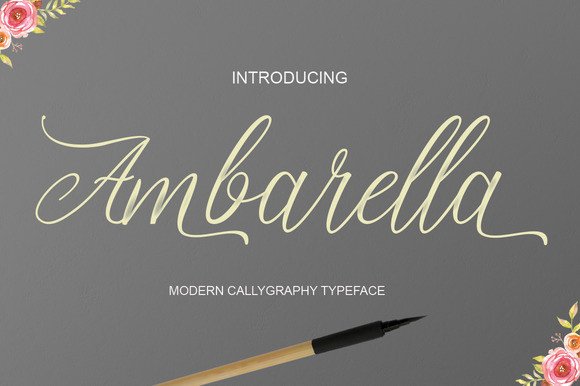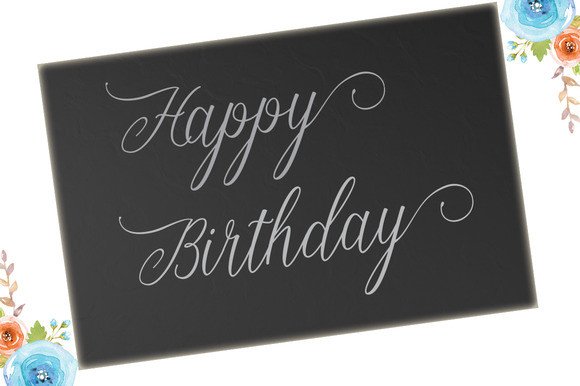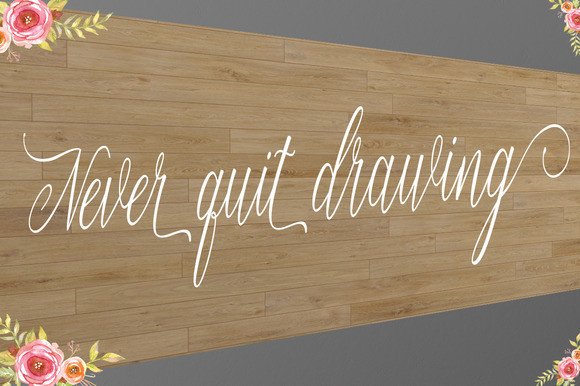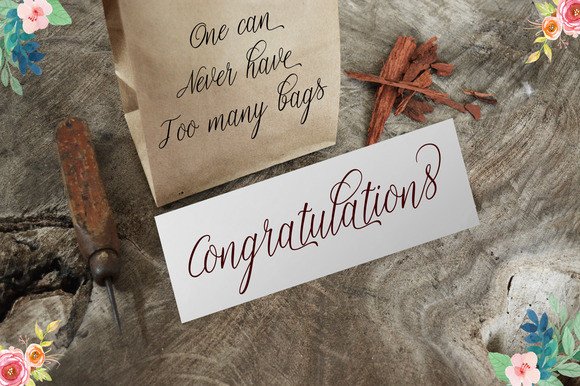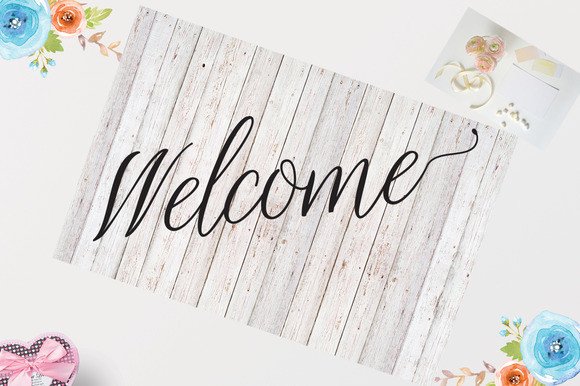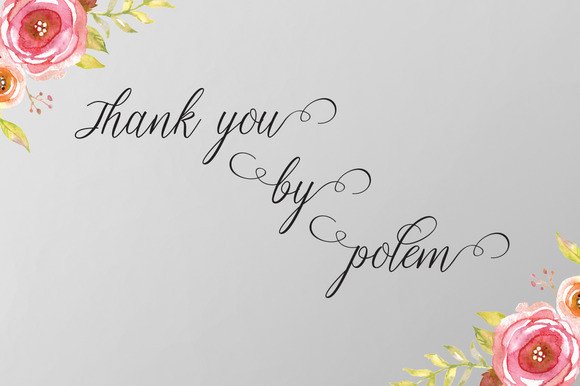
Ambarella Font
About Ambarella Font
Ambarella is a handmade modern typeface with a unique form of calligraphy. It has a very natural writing style and can be used for various purposes such as wedding invitations, letterheads, signatures, posters, t-shirts, and much more.